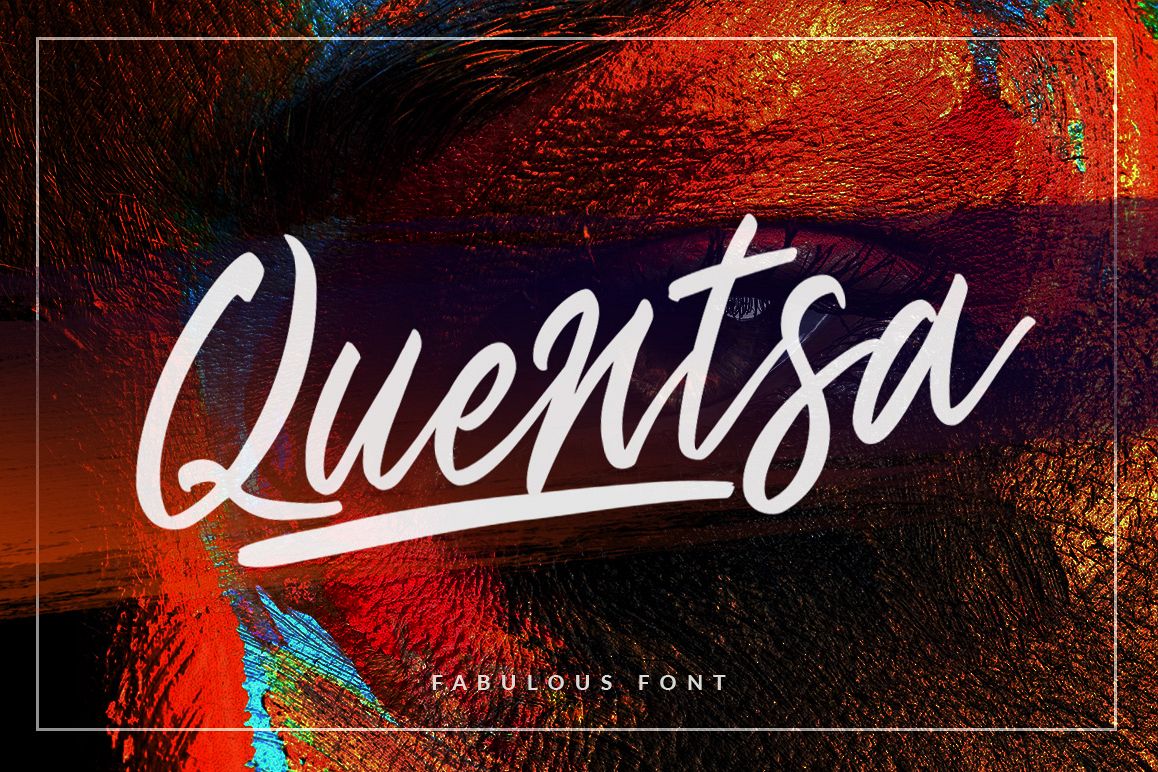
Quentsa Script
Quentsa Swash
Quentsa
Introducing the " Quentsa Script " is Fabulous Calligraphy Typefaces. A new fresh & modern script with a calligraphy style, So beautiful on invitation like greeting cards, branding materials, business cards, quotes, posters, and more!